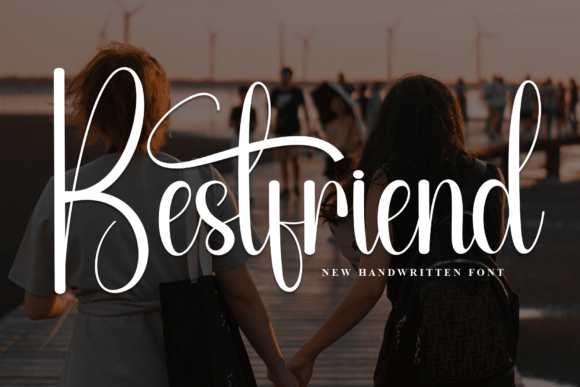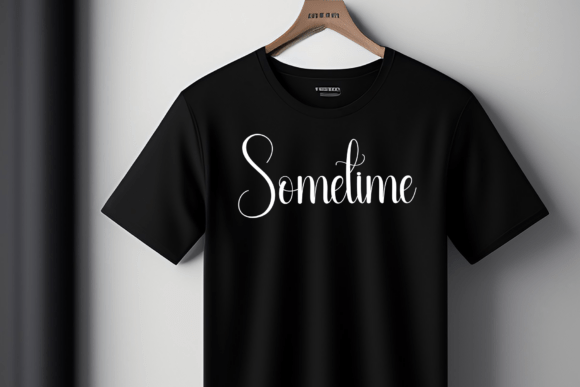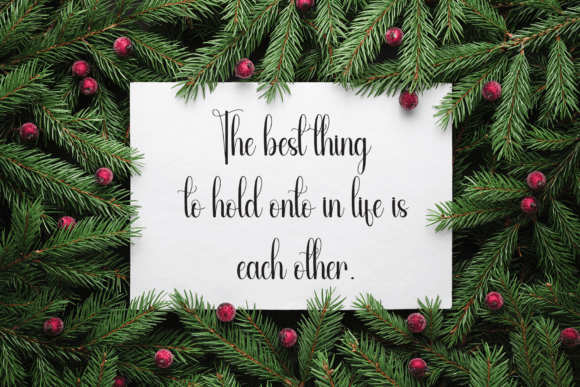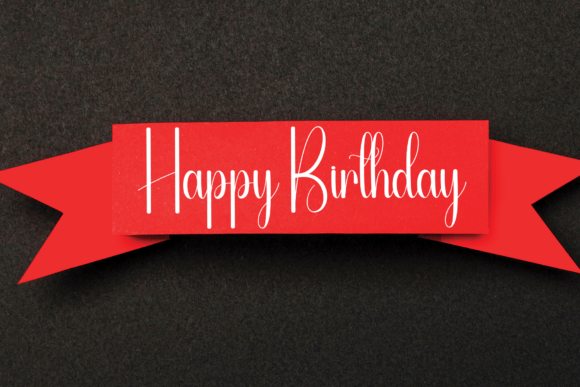
Bestfriend Font
About the Bestfriend Font
Make a bold statement with Bestfriend Font, a powerful and memorable font. Bestfriend is a stylish handwritten script font that exudes elegance and charm with its fluid, graceful strokes. Perfect for branding, invitations, and stationery, it adds a personal and sophisticated touch. The smooth curves and natural flow create a timeless, refined look for any design.
Bestfriend Font Usage Examples
Bestfriend Font Example